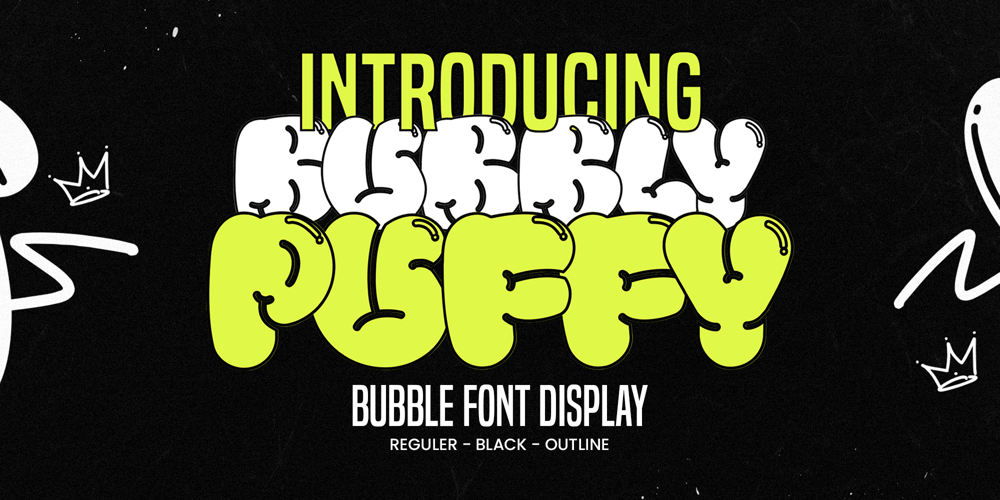
Bubly Puffy
Bubly Puffy font
Bubly Puffy Font Family was designed by Virgiawan Listanto and published by Inviline. Bubly Puffy contains 2 styles and family package options. Introducing a fun and bold Bubble Font Display, featuring rounded, playful characters that pop with personality. Perfect for children’s designs, posters, logos, and social media, this font adds a vibrant, cheerful vibe to any creative project.